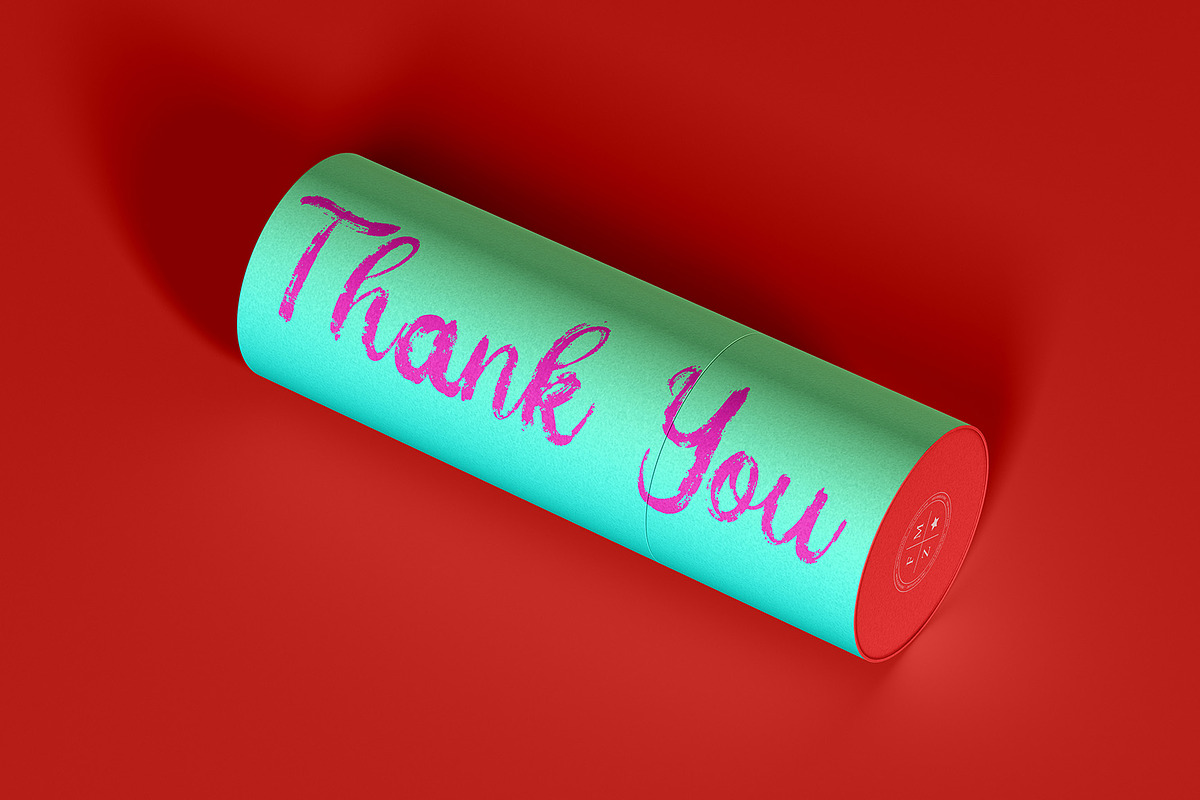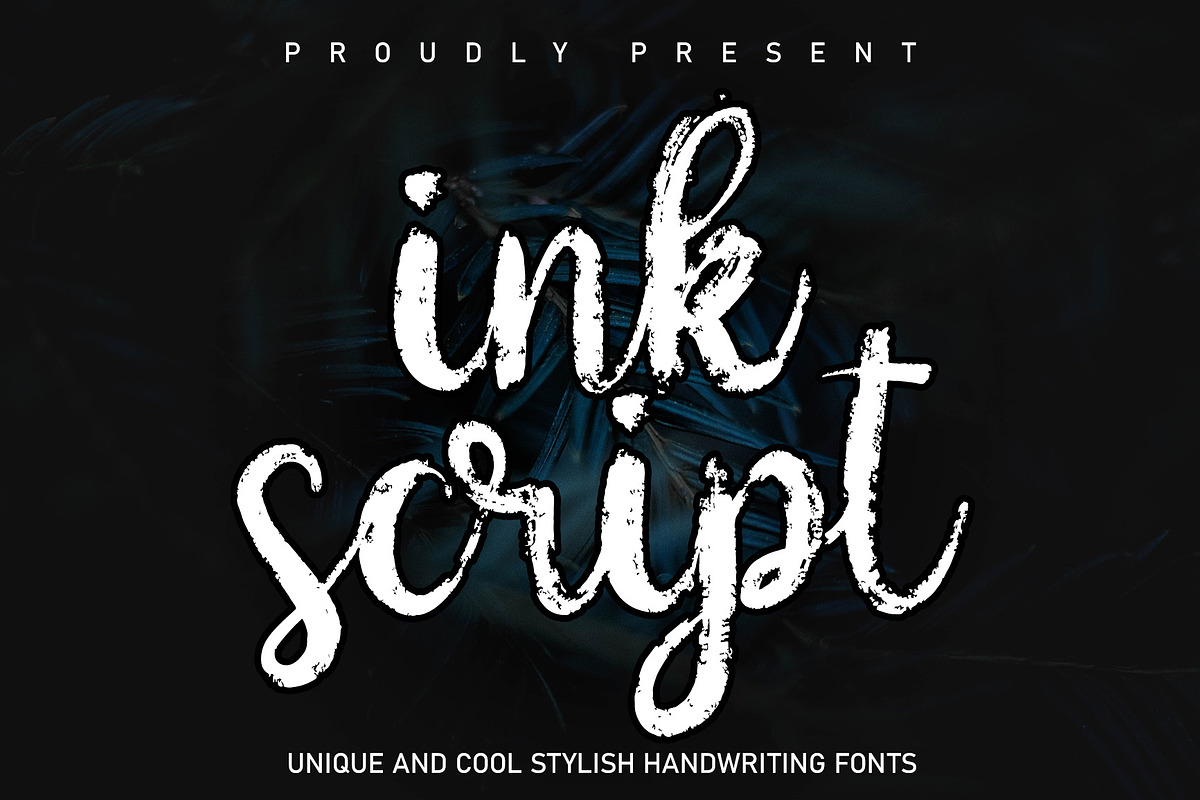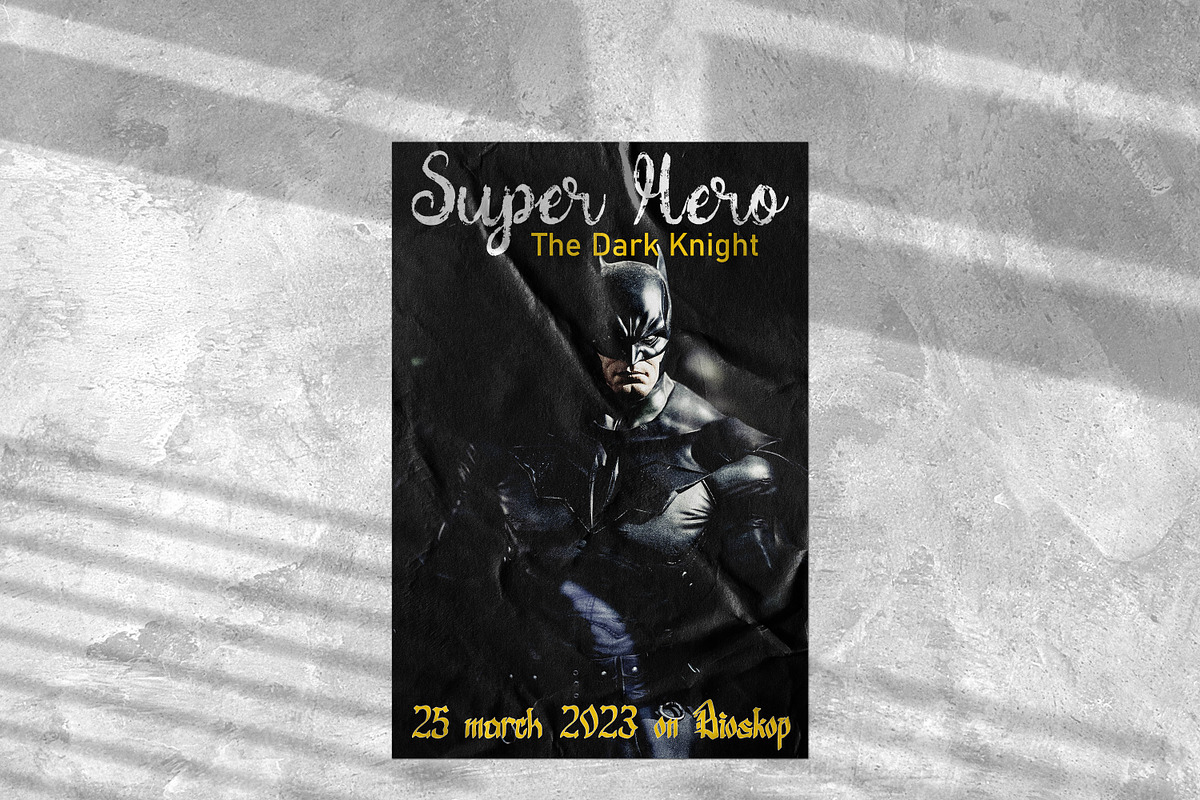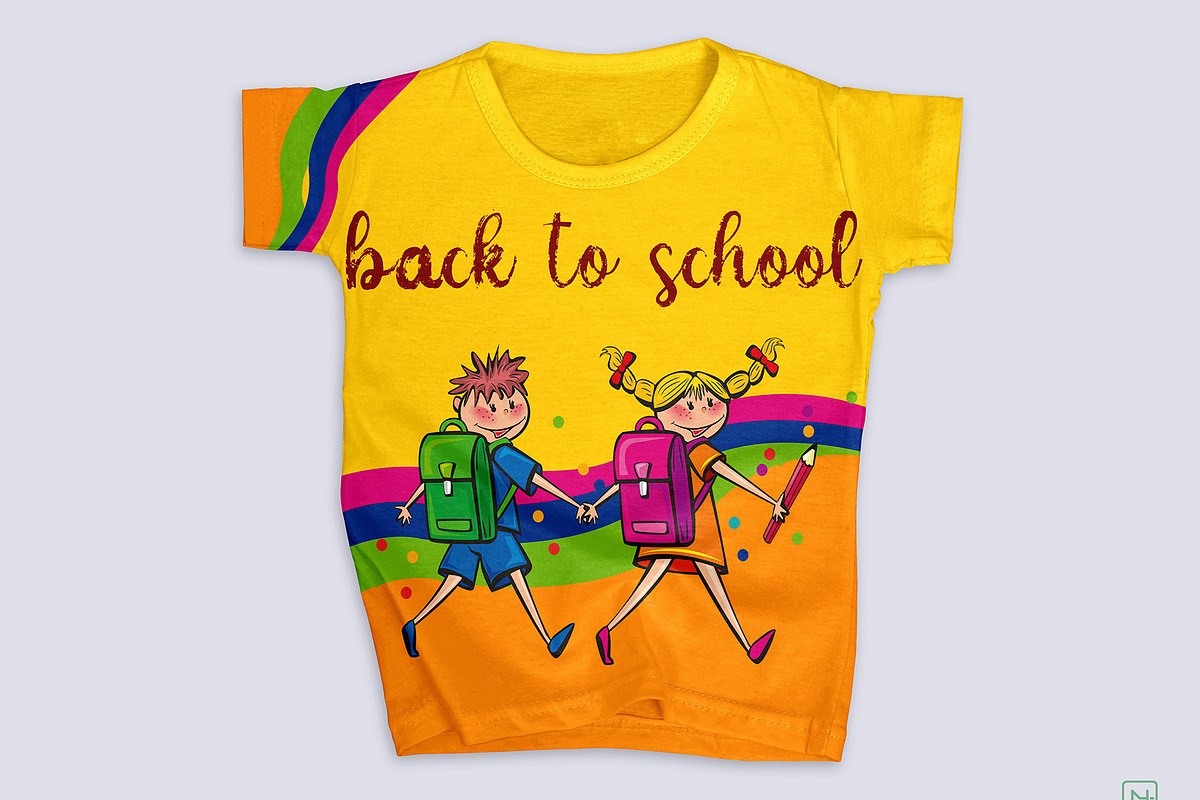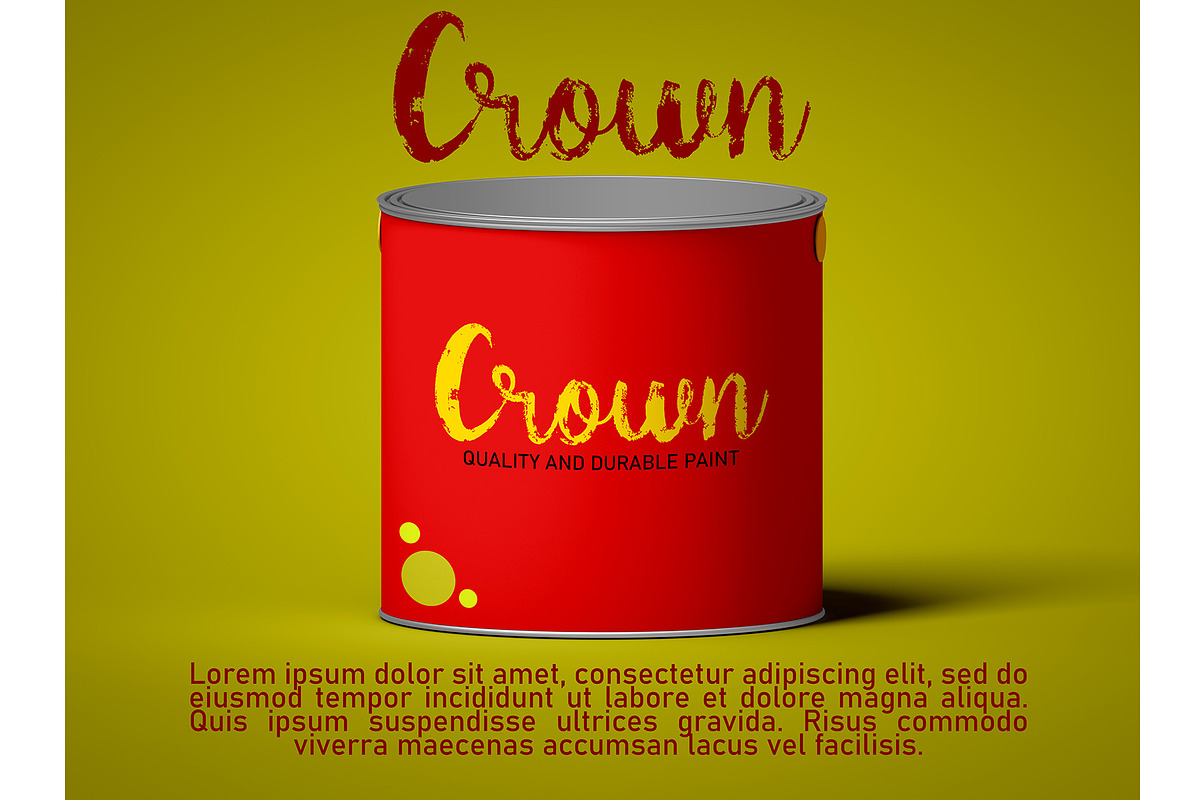
ink script
Ink Script is a stylish and modern script font that was created by paying careful attention to every curve and distance between letters so as to produce a quality font that is perfect for your projects such as wedding invitations, t-shirt printing, brands, and much more.